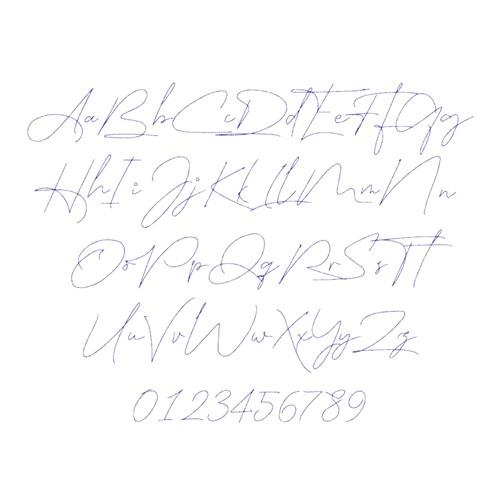
Maya Kreations is happy to present EasyLiberty Font machine embroidery font which has Handwriting-style machine embroidery font with flowing strokes, suitable for crafts like personalized throw pillows. Available in PES, DST & 7 other formats. included. If you would like to view more embroidery fonts and alphabets please search our embroidery fonts page.